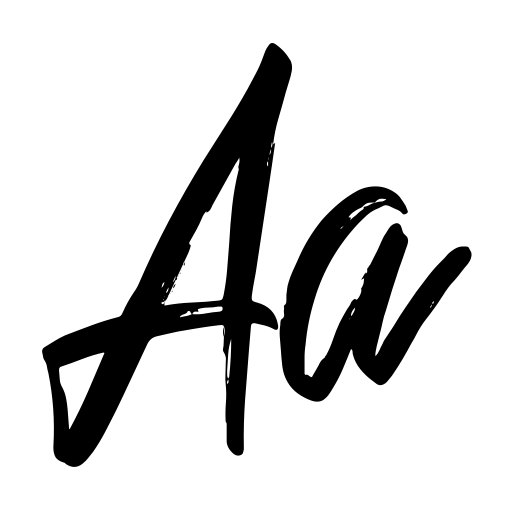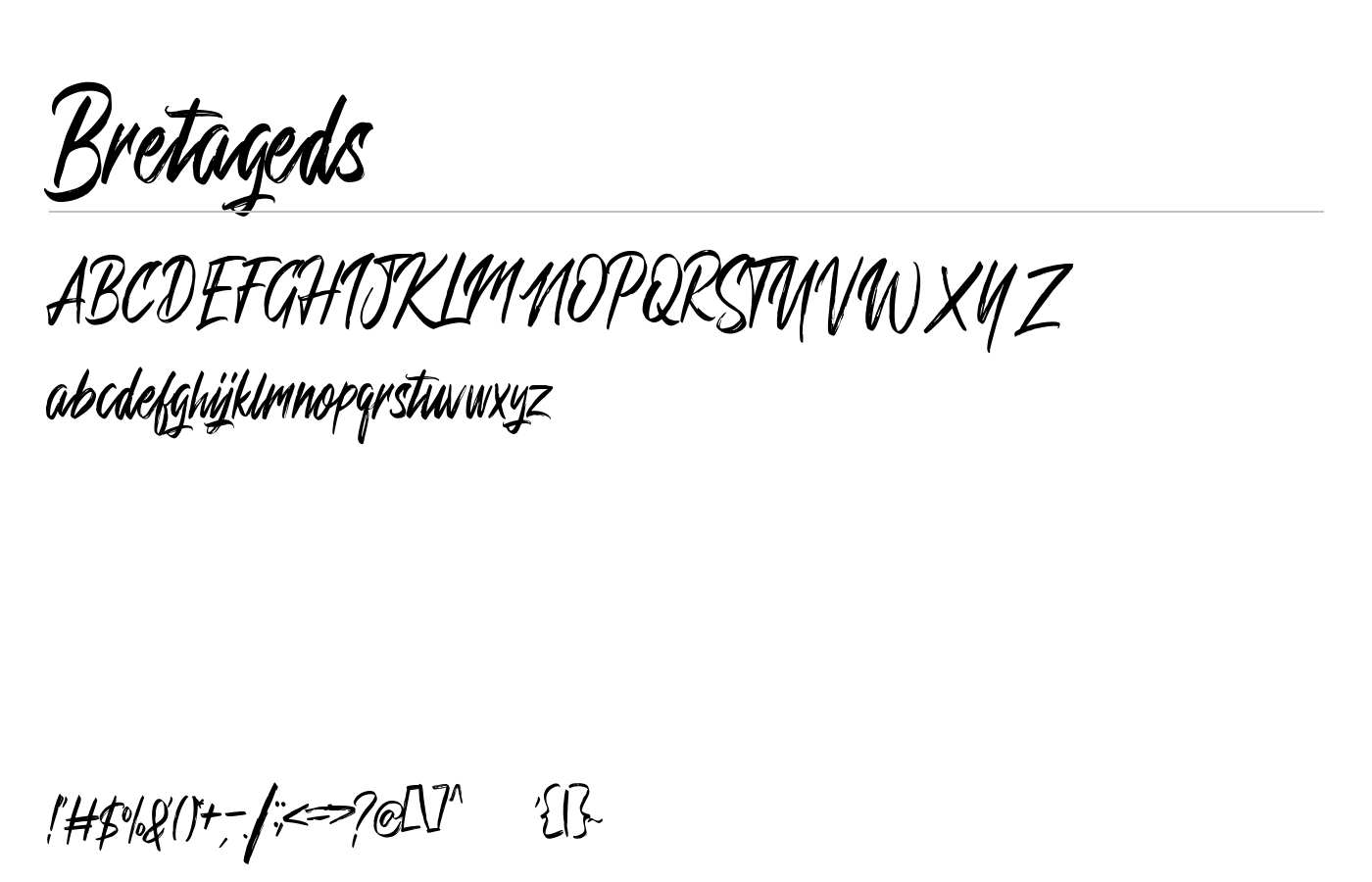
Bretageds is a lively and expressive script font featuring a brush-like texture that adds a personal, handcrafted feel to any design. With its slightly irregular strokes and casual flow, it brings energy and spontaneity, making it perfect for creative branding, invitations, and headlines that need a modern, artistic touch. This font works especially well in projects seeking a dynamic, authentic vibe without sacrificing readability.
Bretageds Font